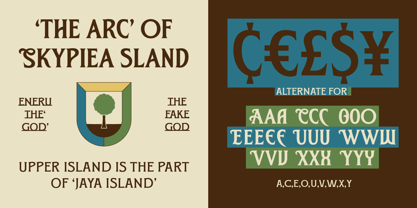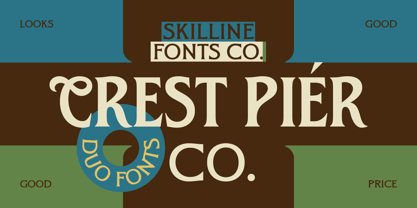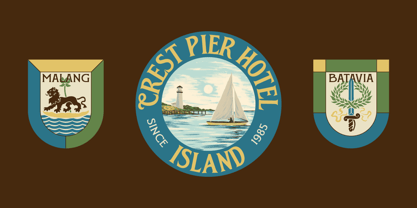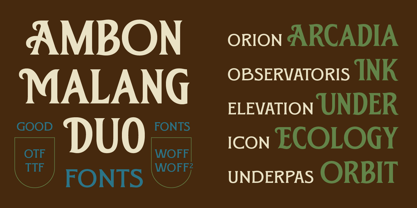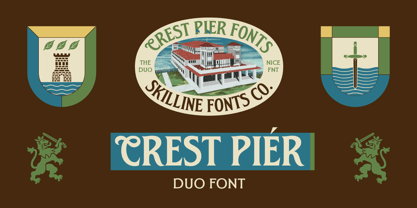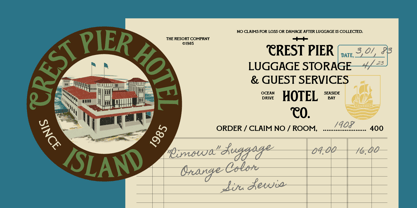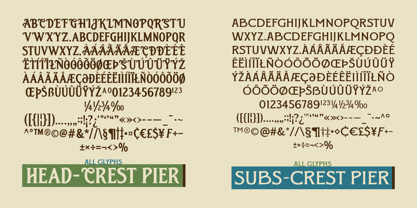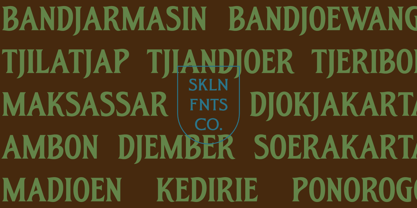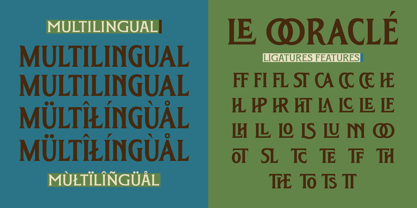
SFC Crest Pier
Die Schriftfamilie SFC Crest Pier wurde von Ahmad Nur Alfian entworfen und von Skilline Fonts Co. veröffentlicht. SFC Crest Pier enthält 2 Stile und Familienpaketoptionen. Mehr über diese Familie
SFC Crest Pier is a refined vintage serif duo inspired by classic indies dutch colonial visual, heritage hotel branding, and timeless maritime aesthetics. Designed with elegant high-contrast strokes and soft flared terminals, this typeface blends sophistication and nostalgia into one cohesive system. More than just a font, SFC Crest Pier also includes a collection of vintage badge illustrations, crest elements, and decorative assets, allowing you to quickly build a strong, premium vintage identity without starting from scratch. Perfect for designers looking to create elegant, heritage-inspired visuals with ease.
Skilline Fonts Co. is the type foundry of Skilline Design Co., a Yogyakarta-based creative studio specializing in vintage-inspired typography and visual branding. Known for its line-based illustrations, badge-style graphics, and expressive lettering, the foundry creates fonts that capture the warmth of heritage design while maintaining modern usability. Each typeface is carefully crafted to bring character, authenticity, and timeless appeal to branding, packaging, signage, apparel, editorial projects, and digital media. Drawing inspiration from classic Americana, rustic craftsmanship, retro advertising, and traditional print culture, Skilline Fonts Co. develops distinctive font families that help designers create memorable and impactful visual identities.